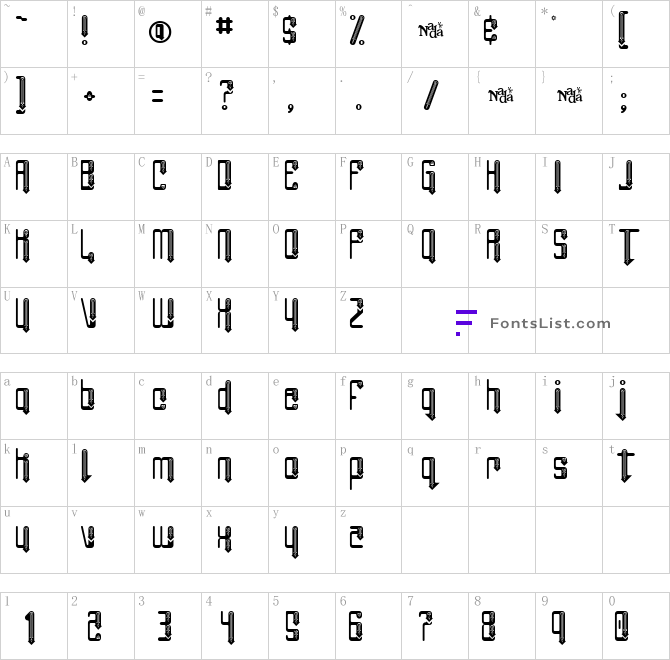
- Font Name:Angie Impressing
Angie-Impressing.ttf is a very beautiful artistic font, Angie-Impressing.ttf is widely used in the design and printing of various books and pictures,Angie-Impressing.ttf has a strong visual impact,Angie-Impressing.ttf is a commonly used font in newspapers, magazines and books, and is used in posters, e-commerce Poster design, store design, logo design, font design and other fields.Angie-Impressing.